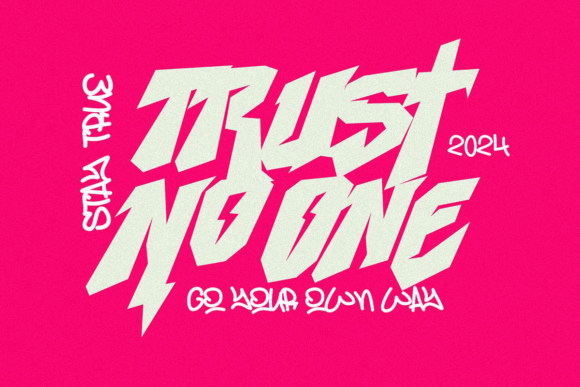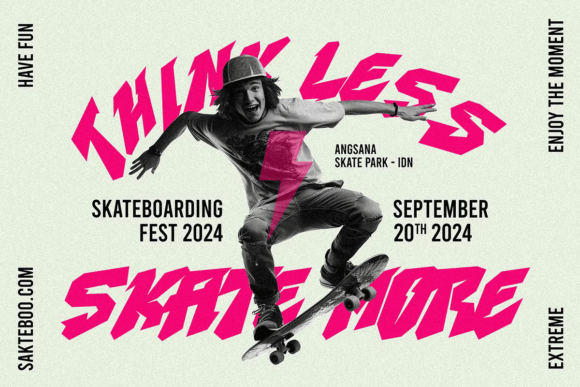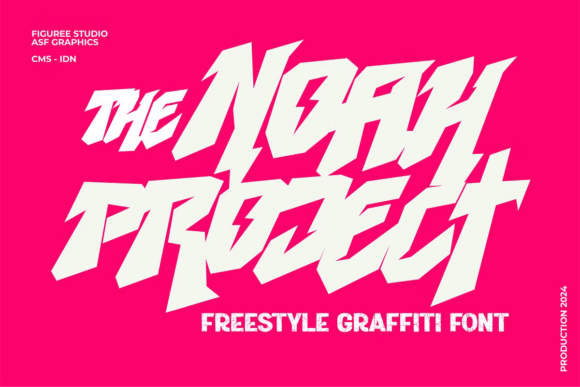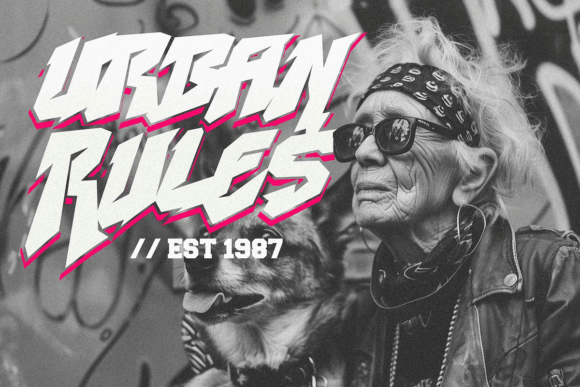
Noah Project Font
About the Noah Project Font
From logos to headlines, the Noah Project Font is the perfect choice for making a lasting impression. Ignite your designs with Noah Project – the freestyle graffiti font that unleashes urban creativity and rebellious spirit. Beyond the confines of streetwear and fashion, Noah Project is a dynamic tool for crafting bold and authentic designs across a spectrum of projects.
Transform your designs into dynamic urban masterpieces with Noah Project – where graffiti meets typography, and creativity knows no bounds. It’s time to make your mark on the world with this best-selling freestyle graffiti font leading the way.